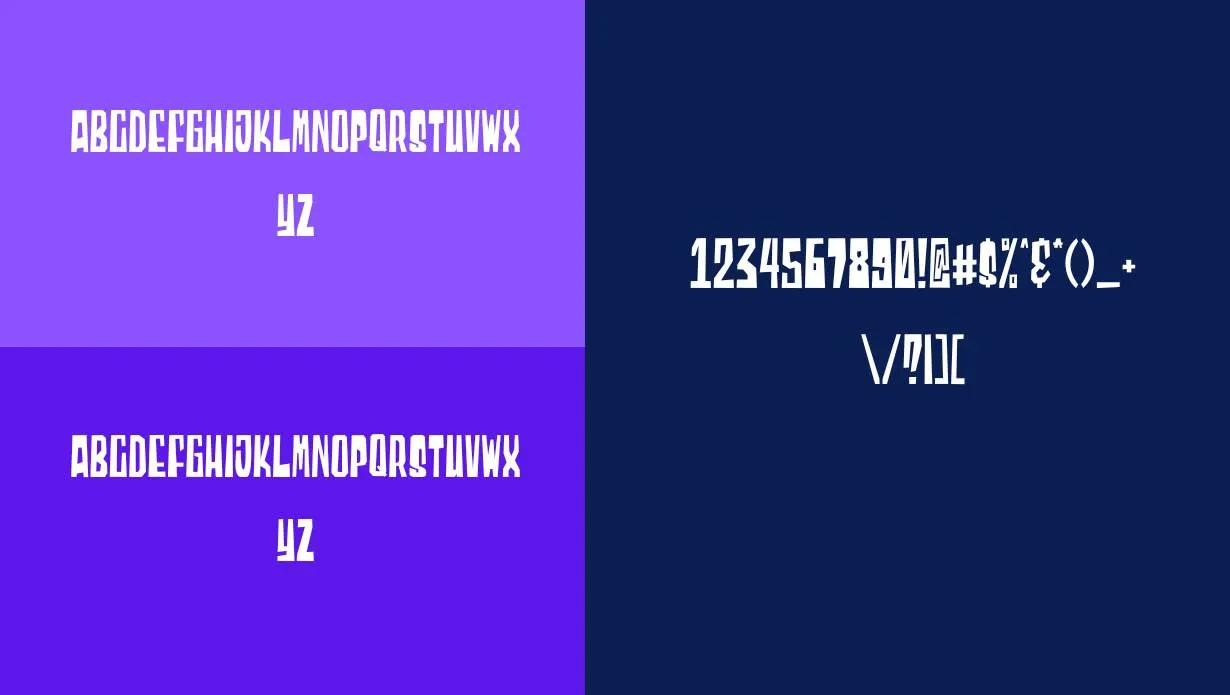
Blocky Font is like building blocks for your words, adding a touch of playful structure. It’s as if your letters decided to form a solid foundation. When you use Blocky Font, your writing becomes bold and well-defined.
It’s like the satisfying click of building blocks coming together, making your words stand out with a strong and straightforward presence. Pick a Blocky Font when you want your writing to be as sturdy and fun as a tower of blocks.
| Name | Blocky Font |
| Designer | Garisman Studio |